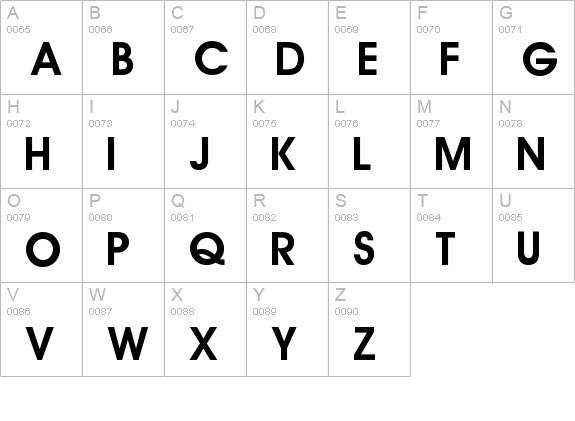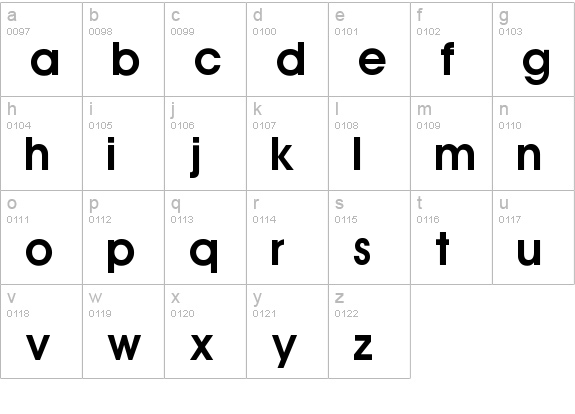
Ronaldo font is a sleek and modern typeface that exudes sophistication and style. With its clean lines and elegant curves, this font is perfect for a wide range of design projects, from branding and advertising to web design and packaging. The versatility of Ronaldo font makes it a must-have for any designer looking to elevate their work to the next level. The best part? Ronaldo font is completely free to download at FontsMarket.com, allowing you to access this premium font without breaking the bank. Whether you're a seasoned professional or just starting out in the world of design, Ronaldo font is sure to become a valuable addition to your font library. Download it today and see for yourself the impact this stunning font can have on your projects.